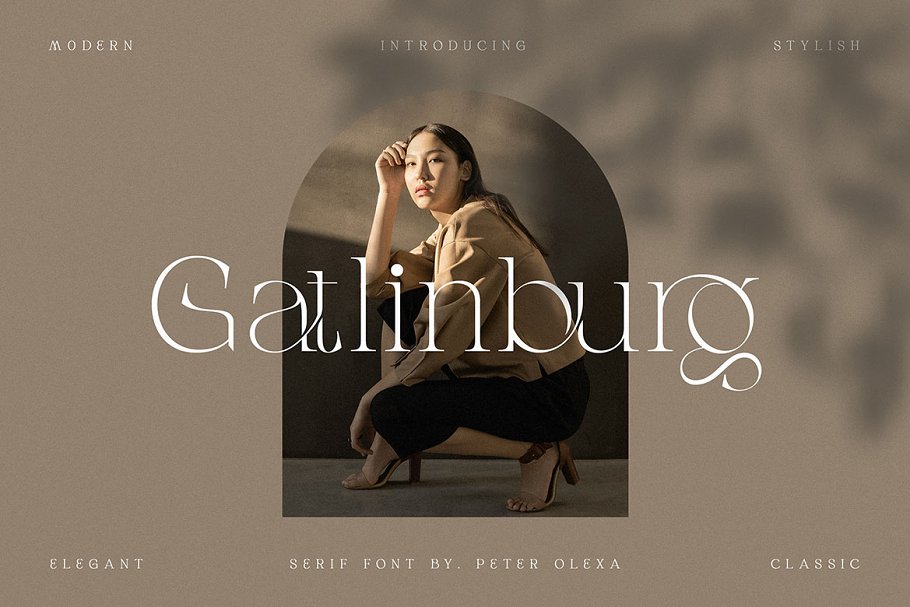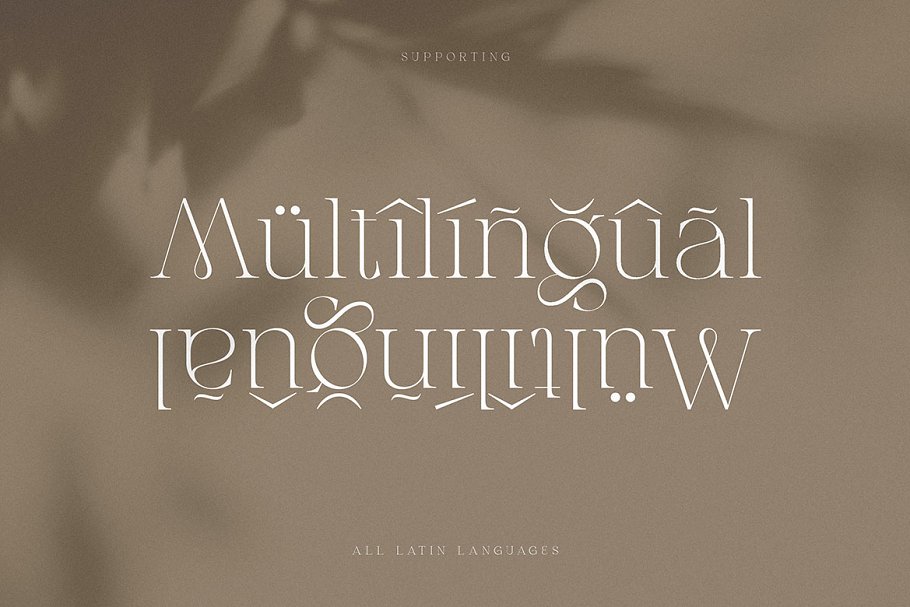
About the Gatlinburg Modern Serif Font
Trendy or modern style serif font for your fancy projects, Elegant and classic style on Gatlinburg font will be great for any branding project, Lot of alternates and ligatures will help you to create unique and original logo design or website header! Enjoy :)2 styles: Regular & ItalicMultilingual supportLot of alternate charactersLot of ligaturesweb fontsGreat for modern branding projects!